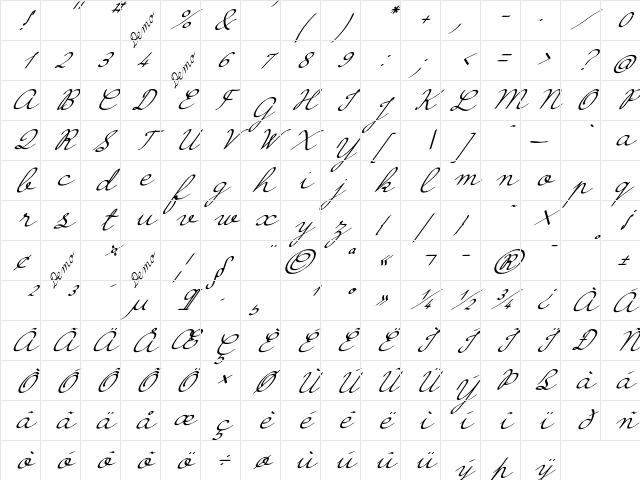
Hirondelle Demo Demo
Design Context for Hirondelle Demo
Hirondelle Demo is a composed and adaptable typeface that performs quietly and consistently across a wide range of design contexts.
Pro Tip: Use Hirondelle Demo in both headline and body roles to test its range before committing to a single application.